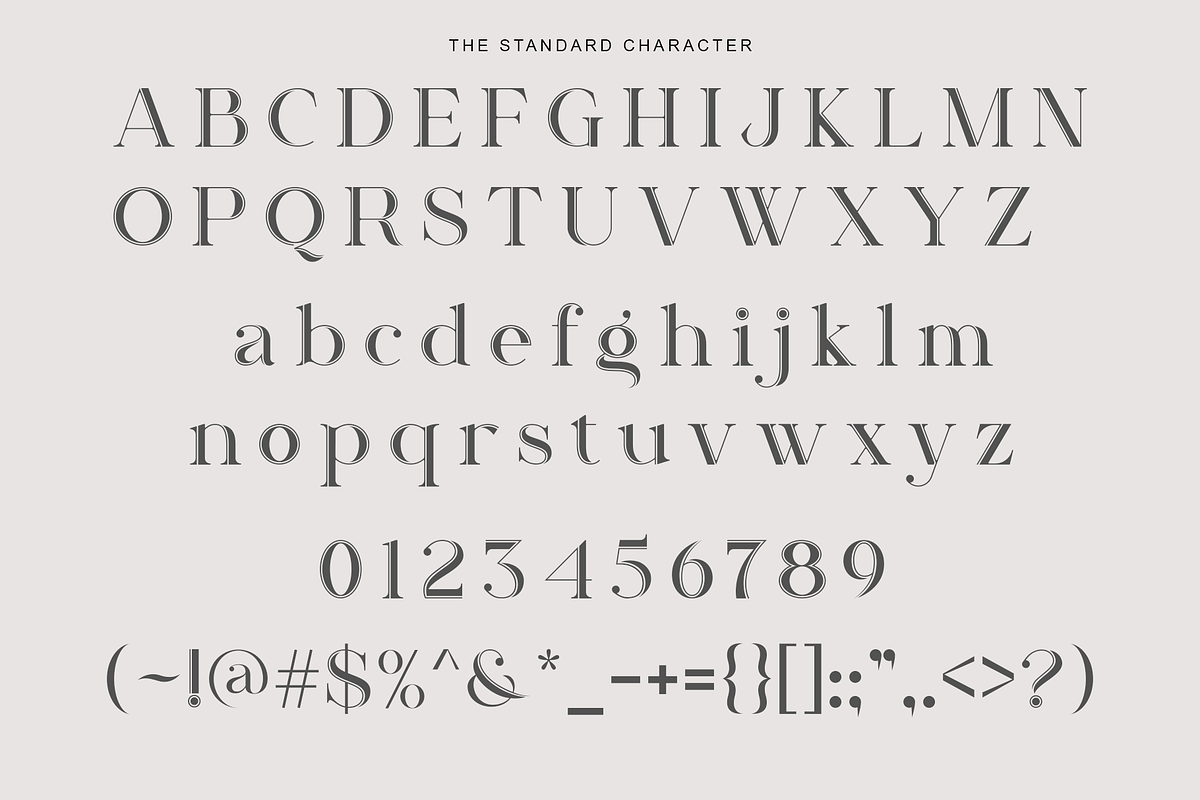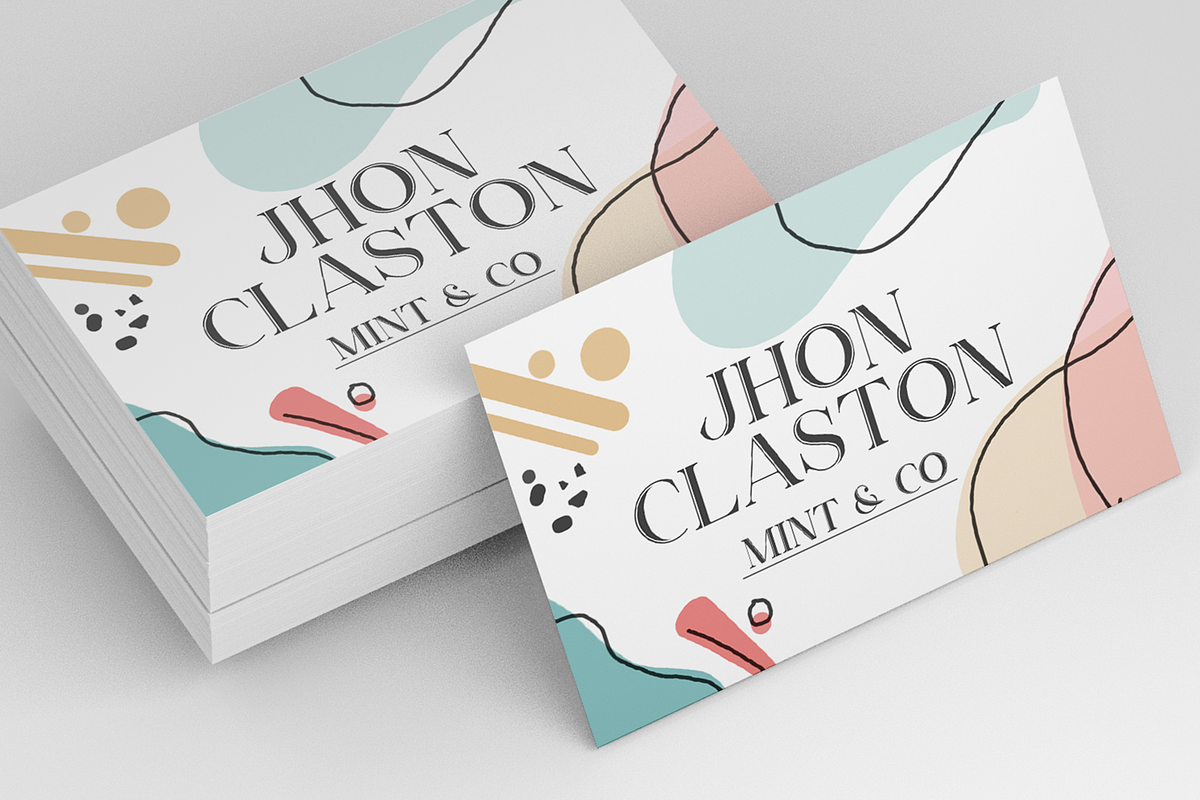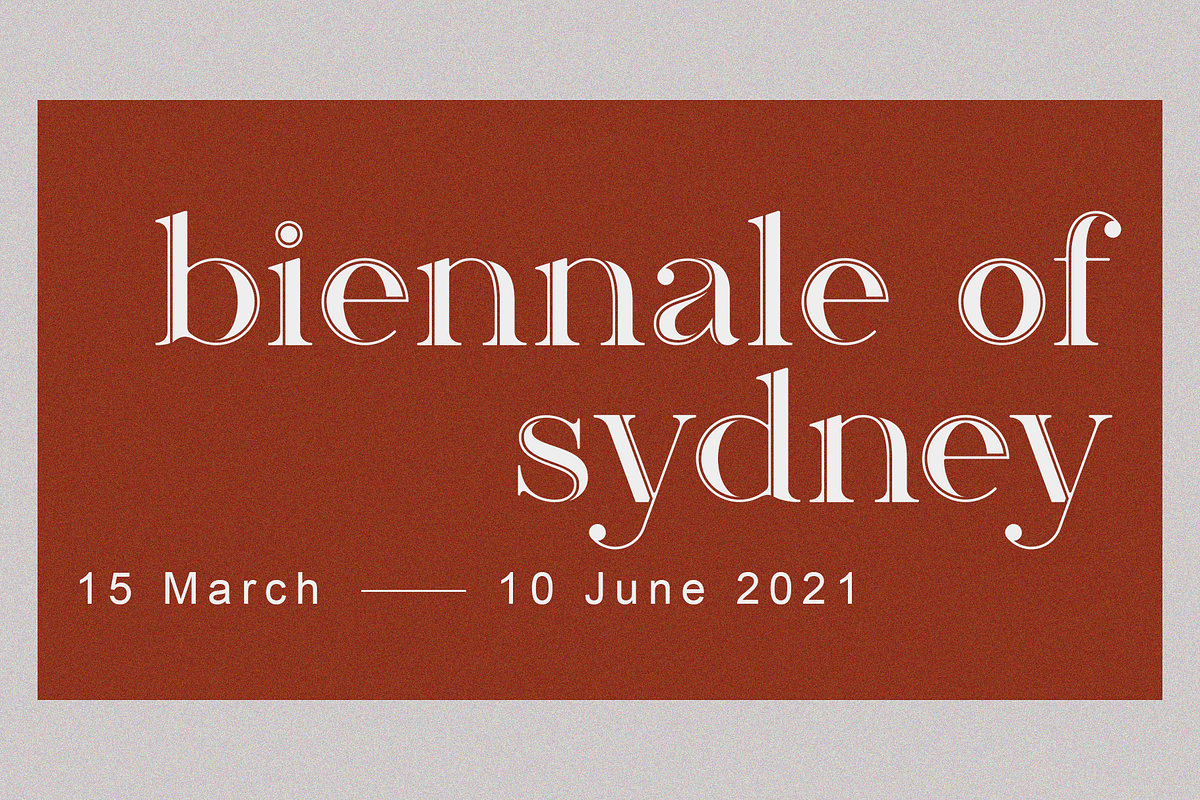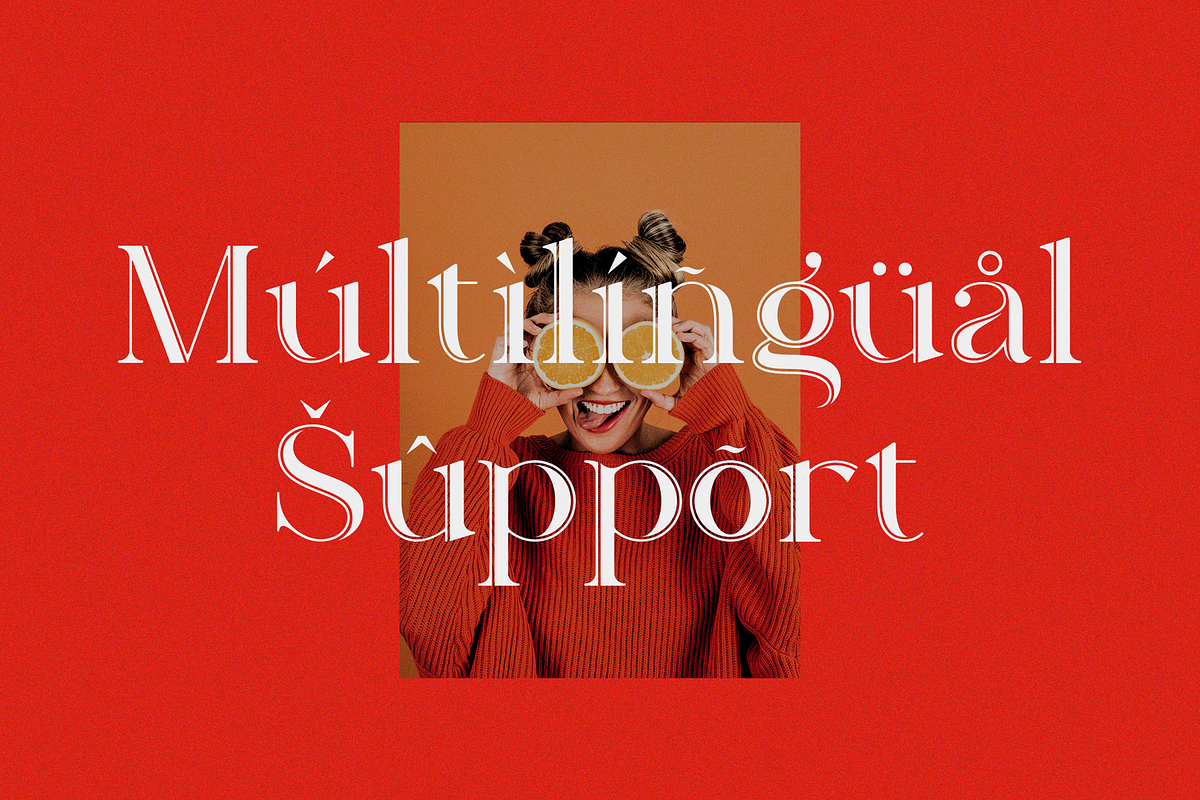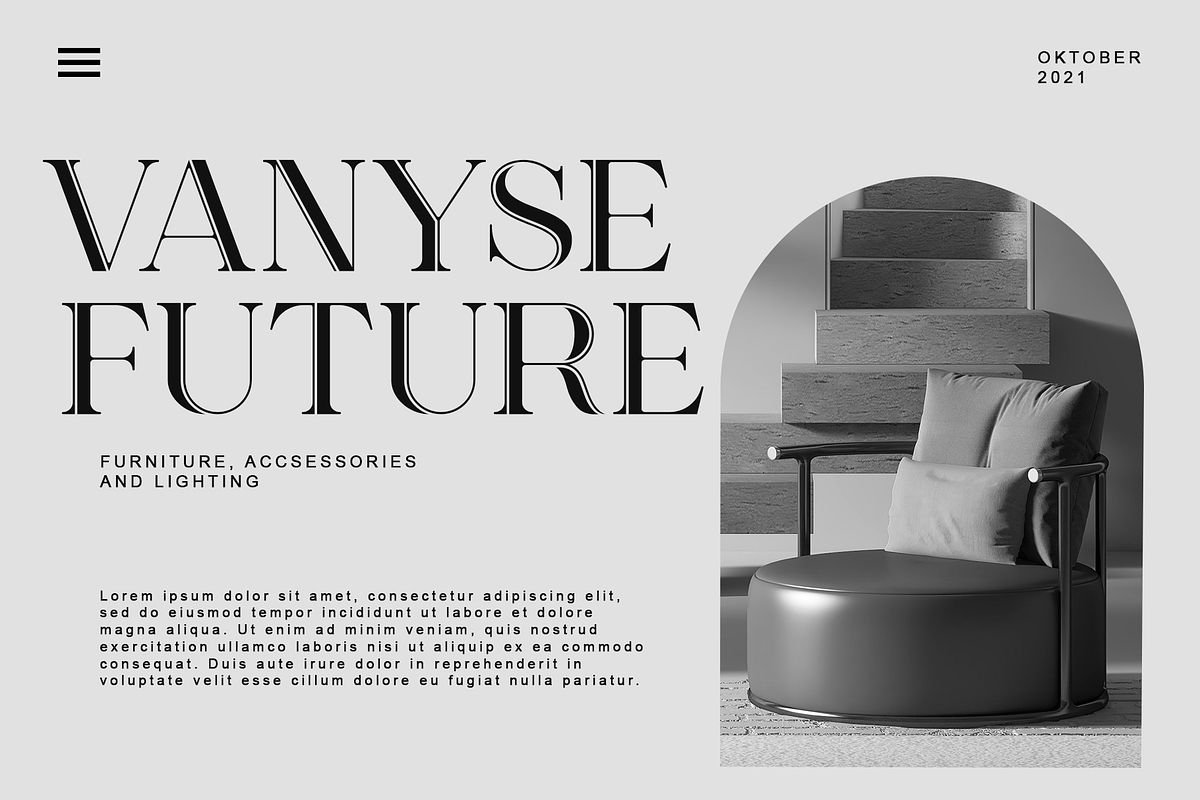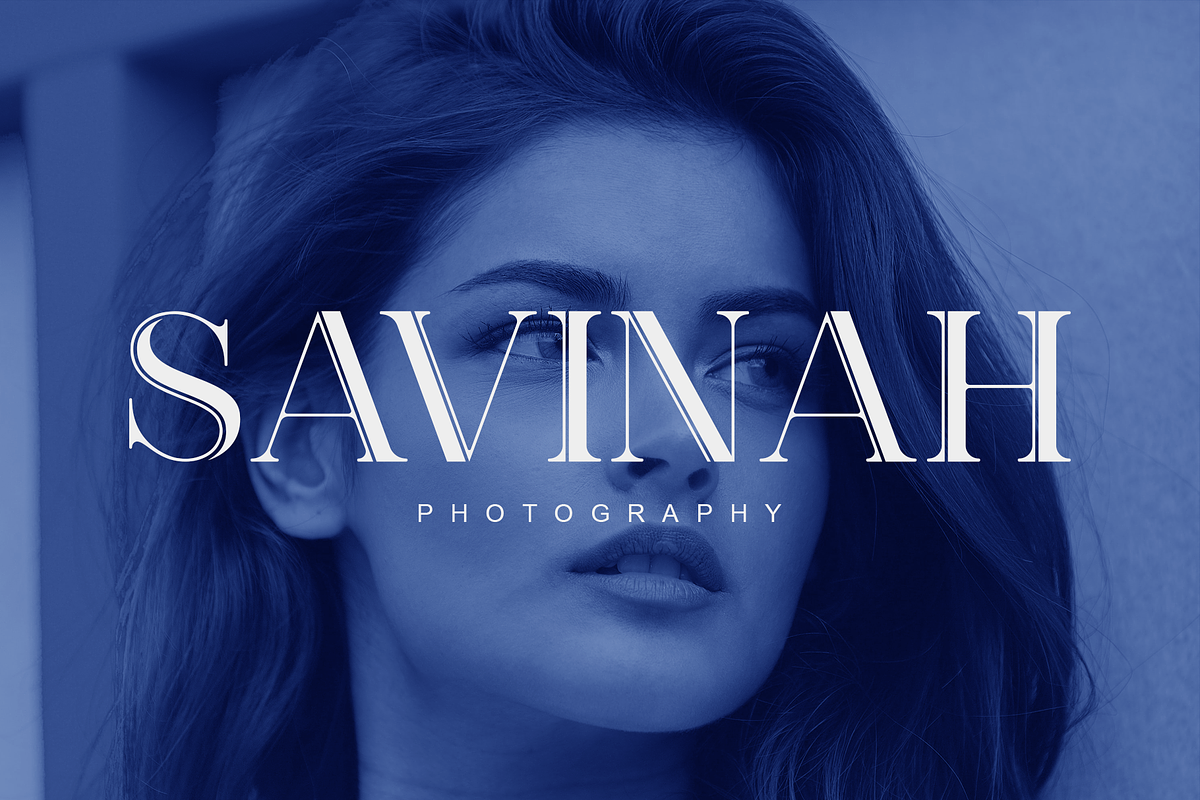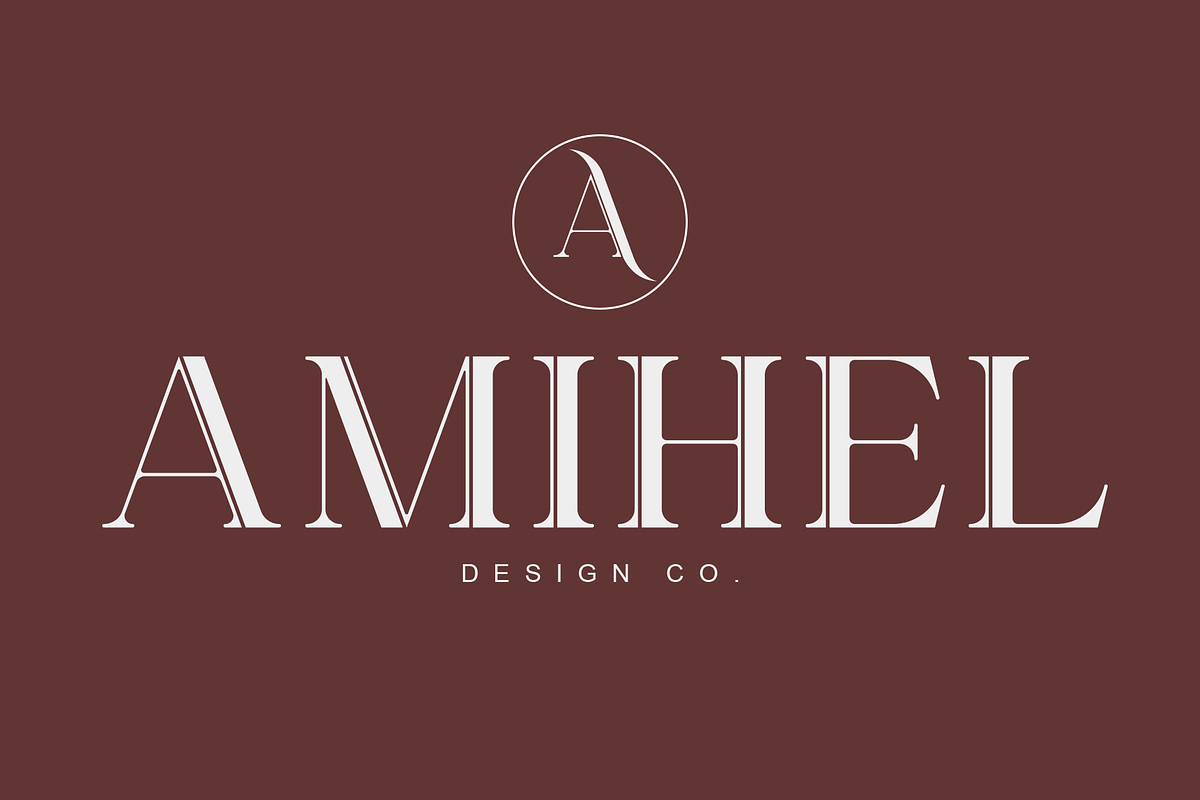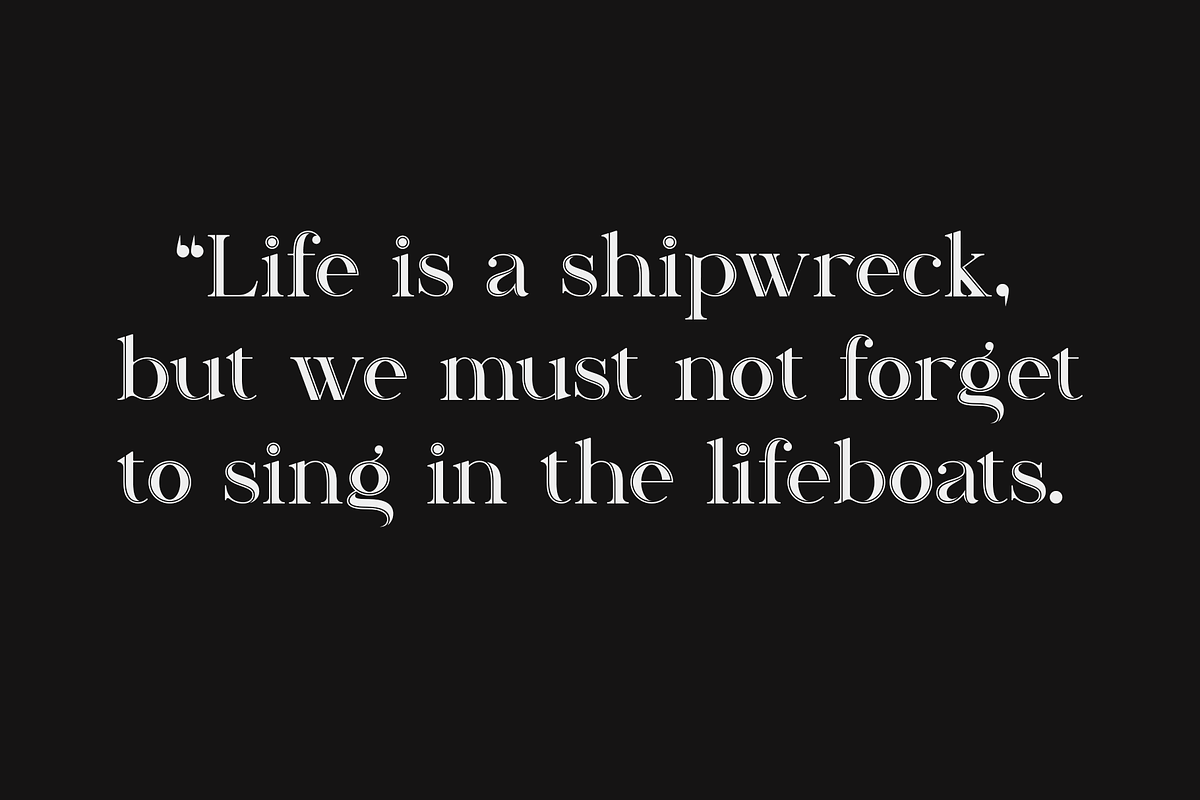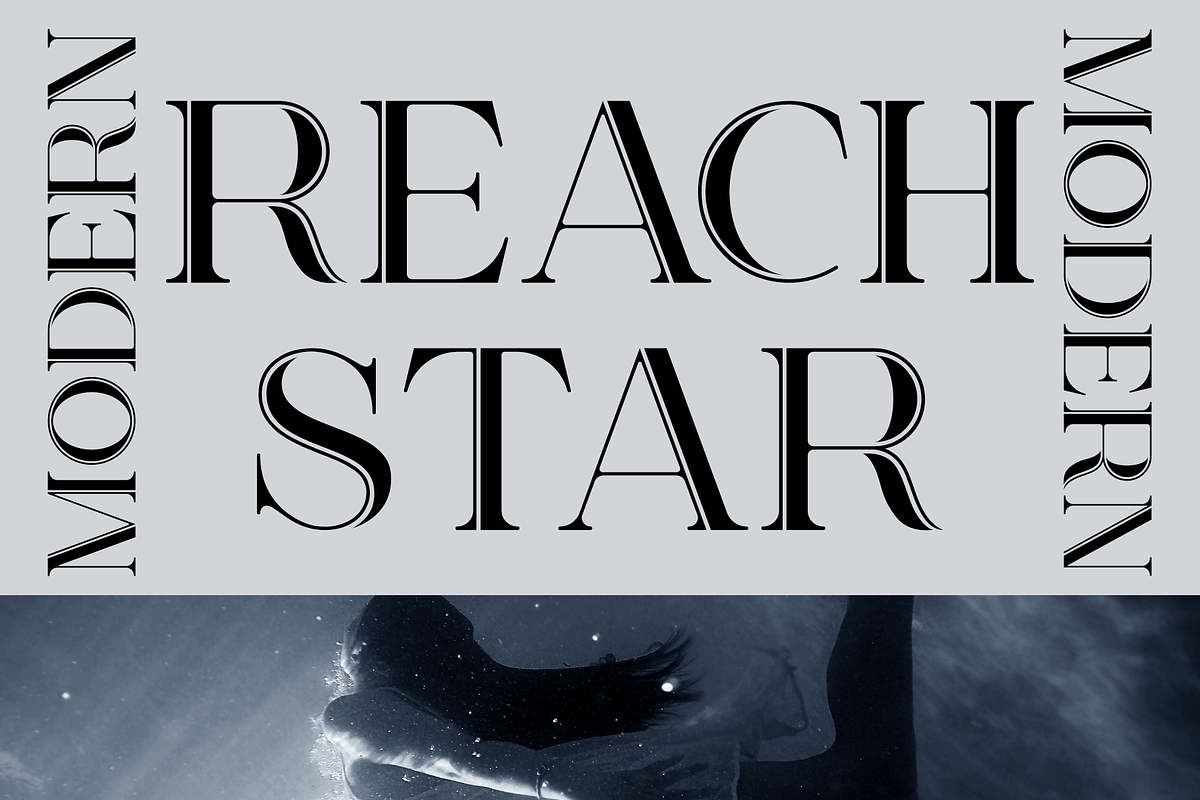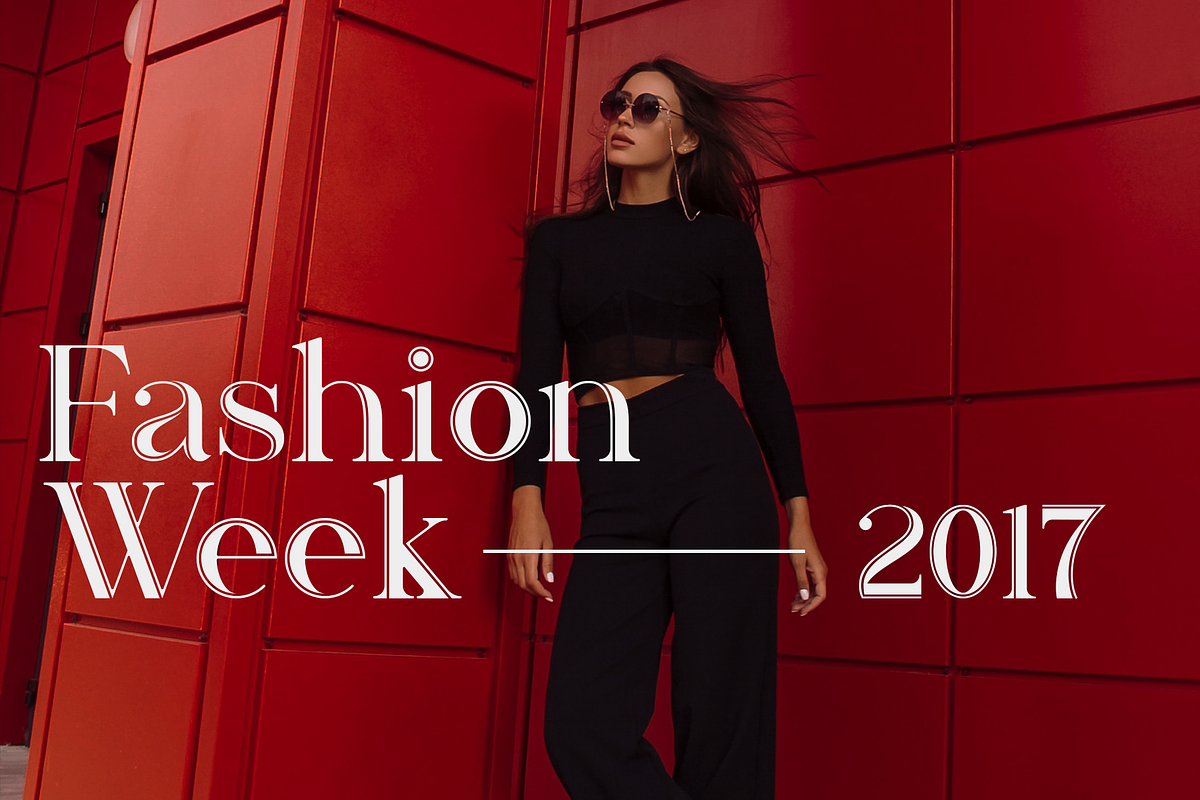
Saevul
Saevul is a Modern Serif typeface with a unique and classy style. This font has a graceful and unique alternates style, which is perfect for your classy projects.
Saevul Modern Serif will be perfect for many projects: fashion, magazines, logos, branding, photography, invitations, quotes, blog headers, posters, advertisements, postcards, etc.
- Upper & lower case letters